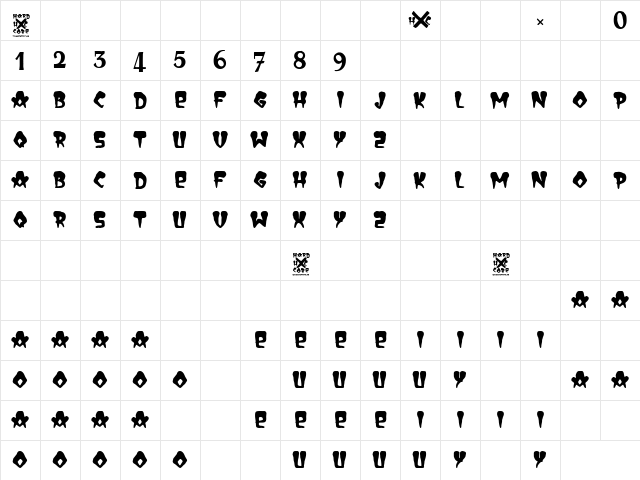
Hard+Core Regular Font Preview
Hard+Core Regular
Design Context for Hard+Core Typeface
Hard+Core is a composed and adaptable typeface that performs quietly and consistently across a wide range of design contexts.